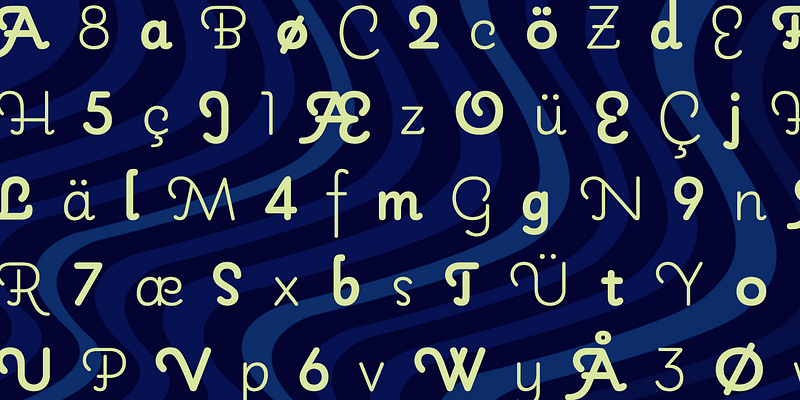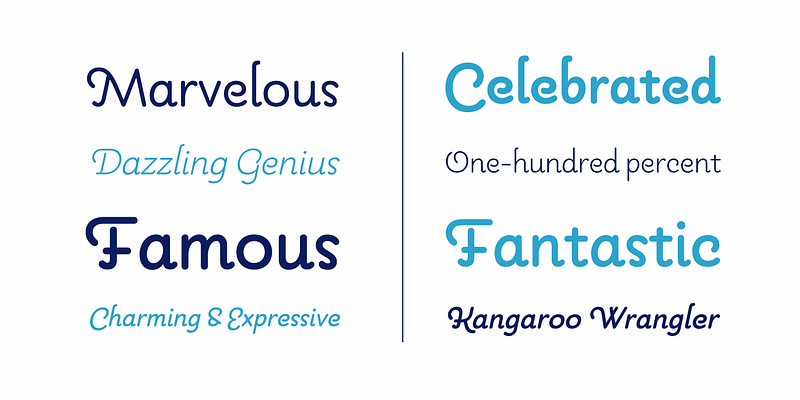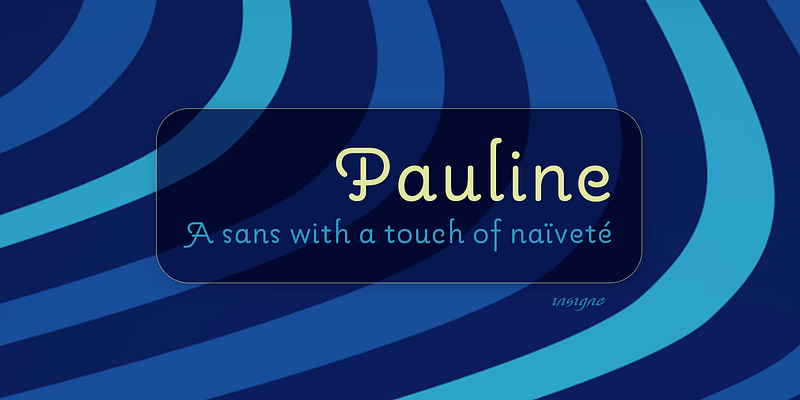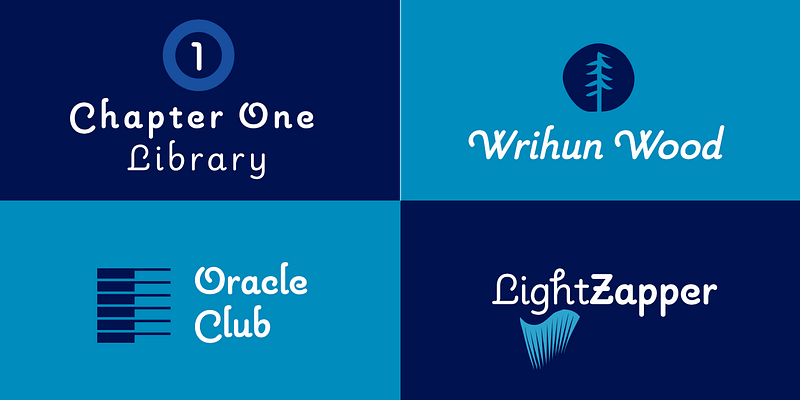
Pauline is a sans serif with a strong influence from retro scripts. Pauline is a geometric face formed with slow and deliberate, rounded brush strokes.